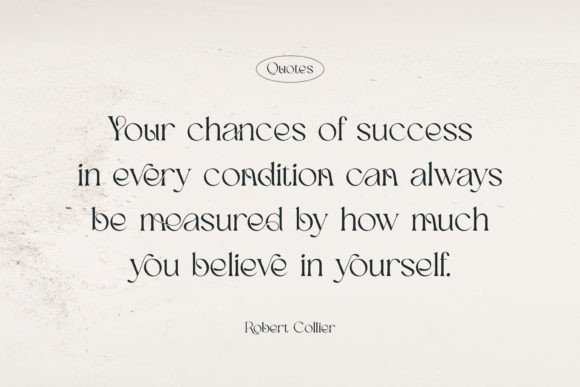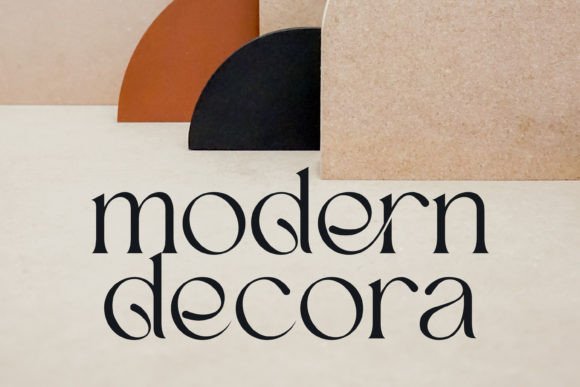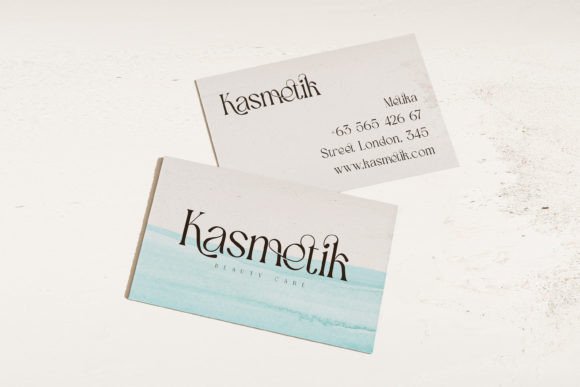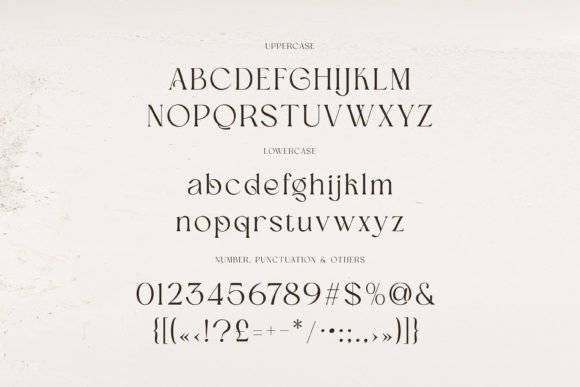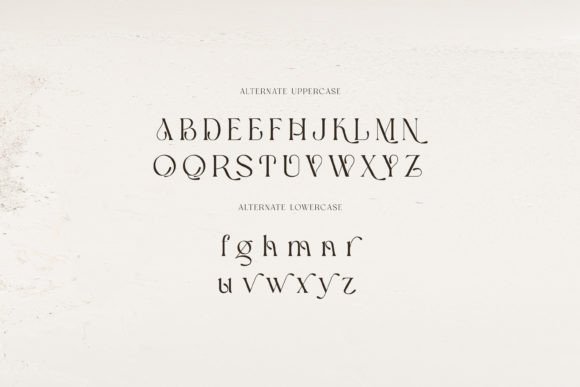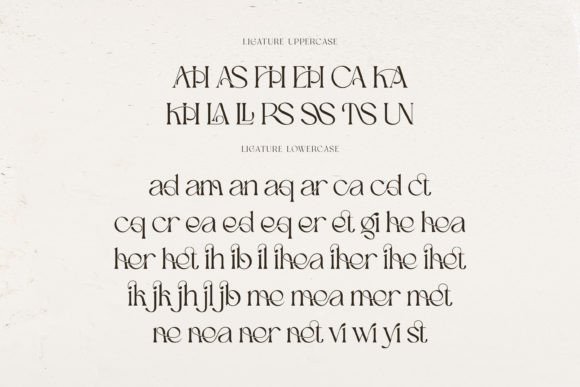
Discover the Timeless Elegance of Biheastra Font
Imagine you’re sitting in a luxurious library, surrounded by leather-bound books and the soft glow of antique lamps. As you browse through the pages of a high-end magazine, the text seems to dance across the page with an air of sophistication and refinement. This is the kind of atmosphere that the Biheastra Font can evoke in your designs.
Biheastra is a beautiful serif font that exudes classic elegance and refinement. Its delicate serifs and subtle italicized angle give it a timeless appearance that’s perfect for creating a high-end and professional aesthetic. As a designer, you’ll appreciate the value of using this font in your projects, from branding and editorial design to other elegant ventures.
With its PUA encoding, you’ll have access to all the glyphs and ligatures, making it easy to craft unique and sophisticated designs that are sure to impress.
- Unique Characteristic: Biheastra Font features a unique blend of modern and vintage elements, with intricate details and flourishes that set it apart from other fonts
Biheastra Font Review
Overall, I have mixed feelings about the Biheastra Font. On one hand, it has some great qualities that make it a great addition to certain projects.
- The unique and quirky design elements make it stand out from more traditional fonts.
- The font is highly customizable, allowing for a wide range of adjustments to suit different design needs.
- The Biheastra Font is highly legible, making it suitable for a variety of text-based applications.
- The font may be too bold or overwhelming for more delicate or minimalist designs.
- The character set is limited, which may cause issues when working with non-English languages.
- The font may not be suitable for projects that require a high level of consistency and professionalism.
Overall, the Biheastra Font is a fun and creative option for designers who want to add some personality to their projects. However, it may not be the best choice for every design need. With some careful consideration and adjustments, it can be a great addition to the right project.
For best results, use the Biheastra Font in headings and titles to create a visually appealing contrast with other fonts in your design.
For best results, use the Biheastra Font in combination with other creative elements, such as graphics and textures, to create a unique and eye-catching design.
For best results, use the Biheastra Font in headings and titles to create a clear and concise visual hierarchy.
The Biheastra Font is ideal for:
Designing creative and modern logos
Creating eye-catching headings and titles
Adding a touch of elegance and sophistication to your designs
Experimenting with different font combinations and styles
Alternatives to Biheastra Font
Open Sans is a modern sans-serif font that is highly legible and versatile. It’s perfect for body text and is often used for digital products, websites, and apps. Compared to Biheastra, Open Sans has a more neutral feel, making it a good choice for designs that require a clean and simple aesthetic.
What is the recommended font size for optimal readability with Biheastra Font?
The recommended font size for optimal readability with Biheastra Font is between 12 and 14 points for body text. However, this may vary depending on the specific design requirements, target audience, and technical specifications. It’s essential to test different font sizes and line heights to achieve the best results for your project.